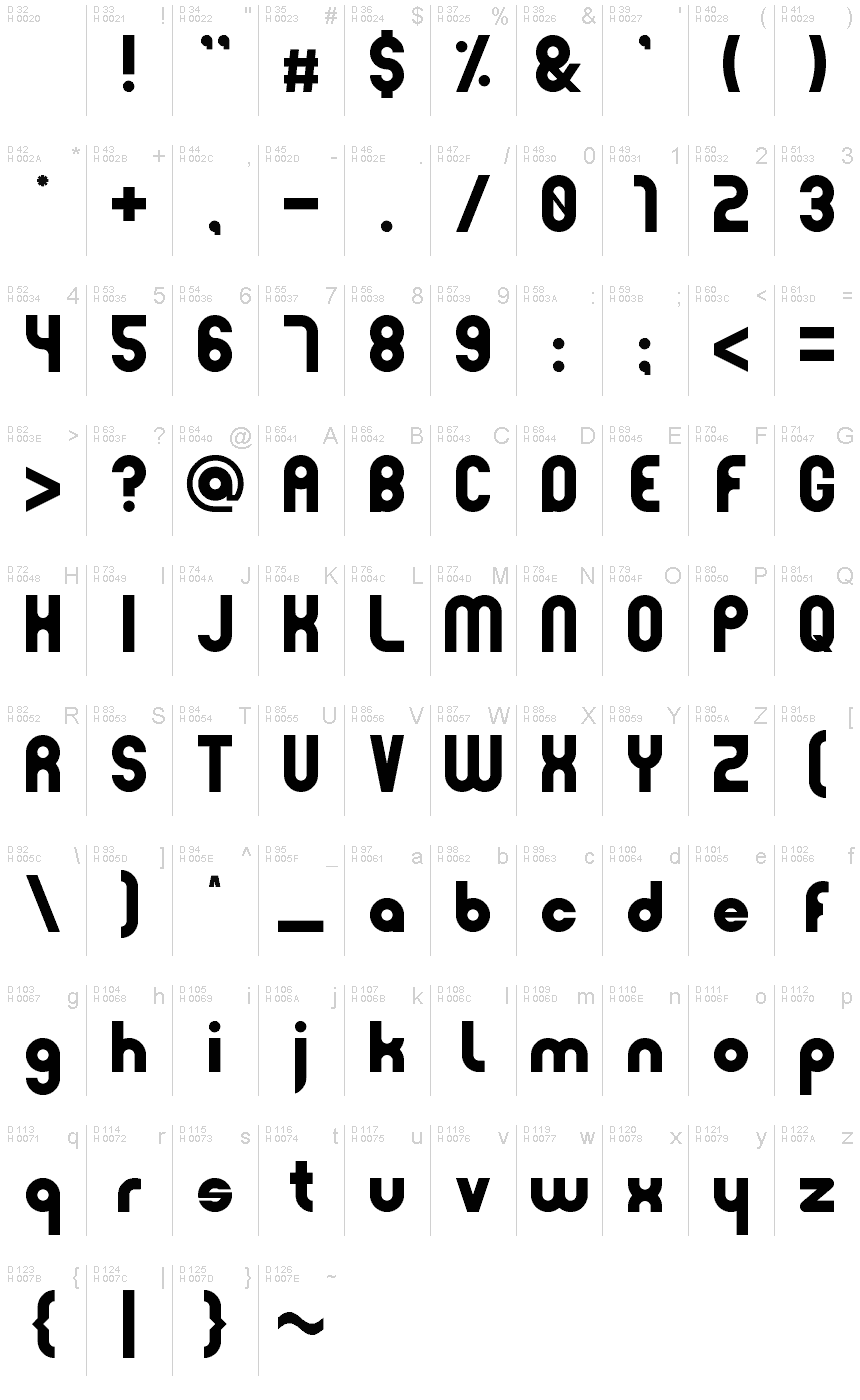
Minimoon
Minimoon is a bold, groovy display font that commands attention. Designed by Blazej Gradziel, this font exudes a retro-futuristic charm with its clean lines and distinctive geometric forms.
The uppercase letters feature a striking balance of negative space and solid shapes, creating a sense of balance and visual interest. Minimoon's versatility shines through, lending itself well to a variety of design applications, from eye-catching headlines and poster designs to branding and packaging.
Its bold presence and retro-inspired aesthetic make it a compelling choice for projects seeking a bold, attention-grabbing typographic treatment.